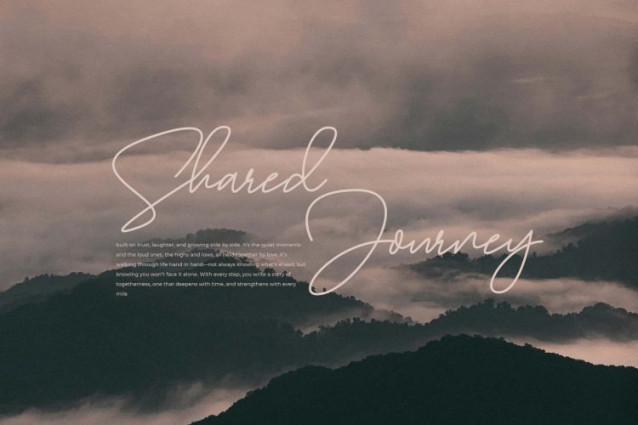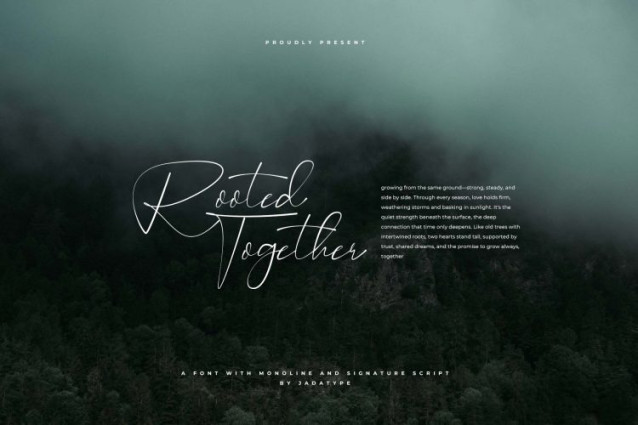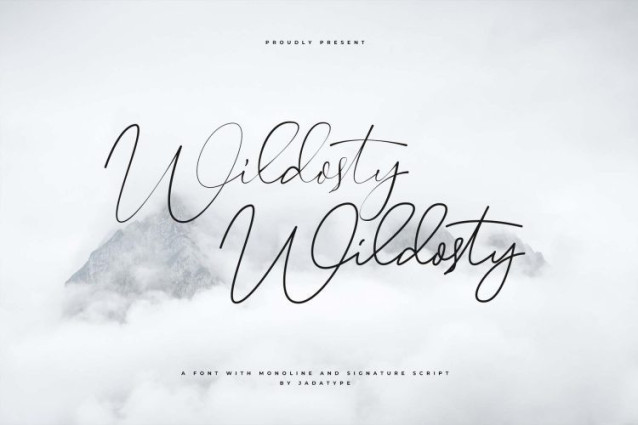
Wildosty Handwritten Font
Wildosty Handwritten Font is a font with a stylish signature style. suitable for branding, social media, products, advertisement, and so on. contains standard English letters, numbers, punctuation, and several accents that support multilingualism.